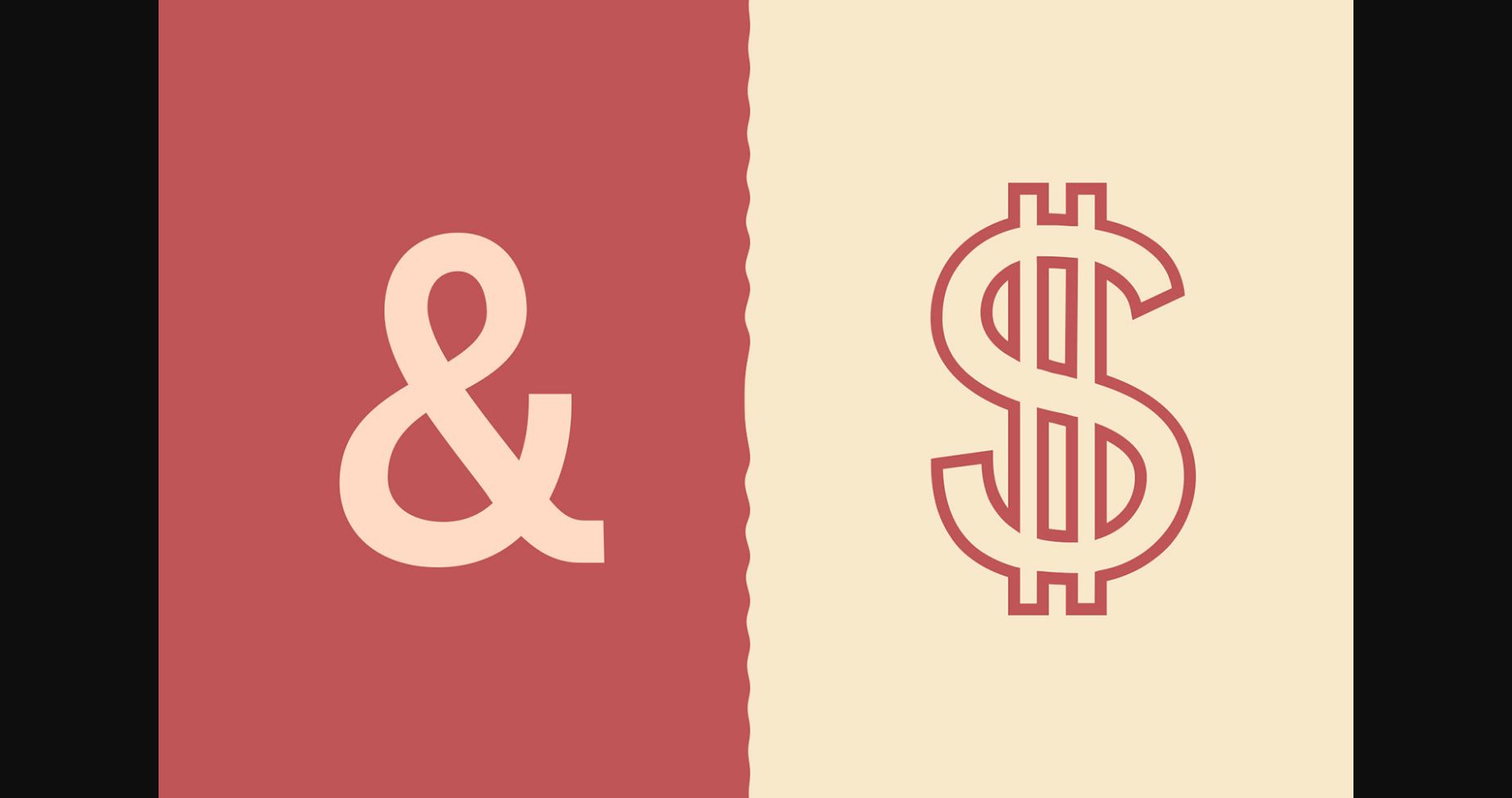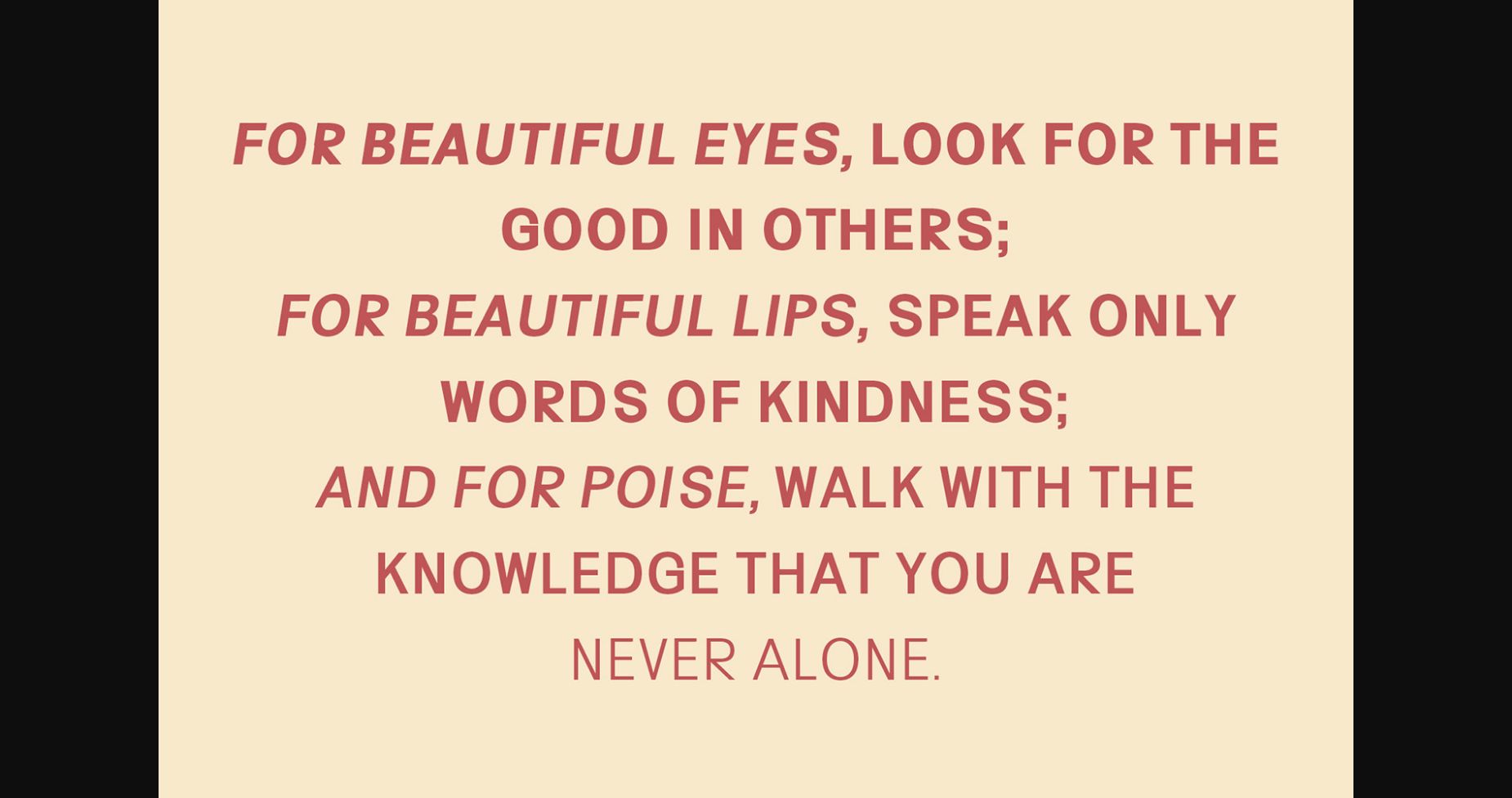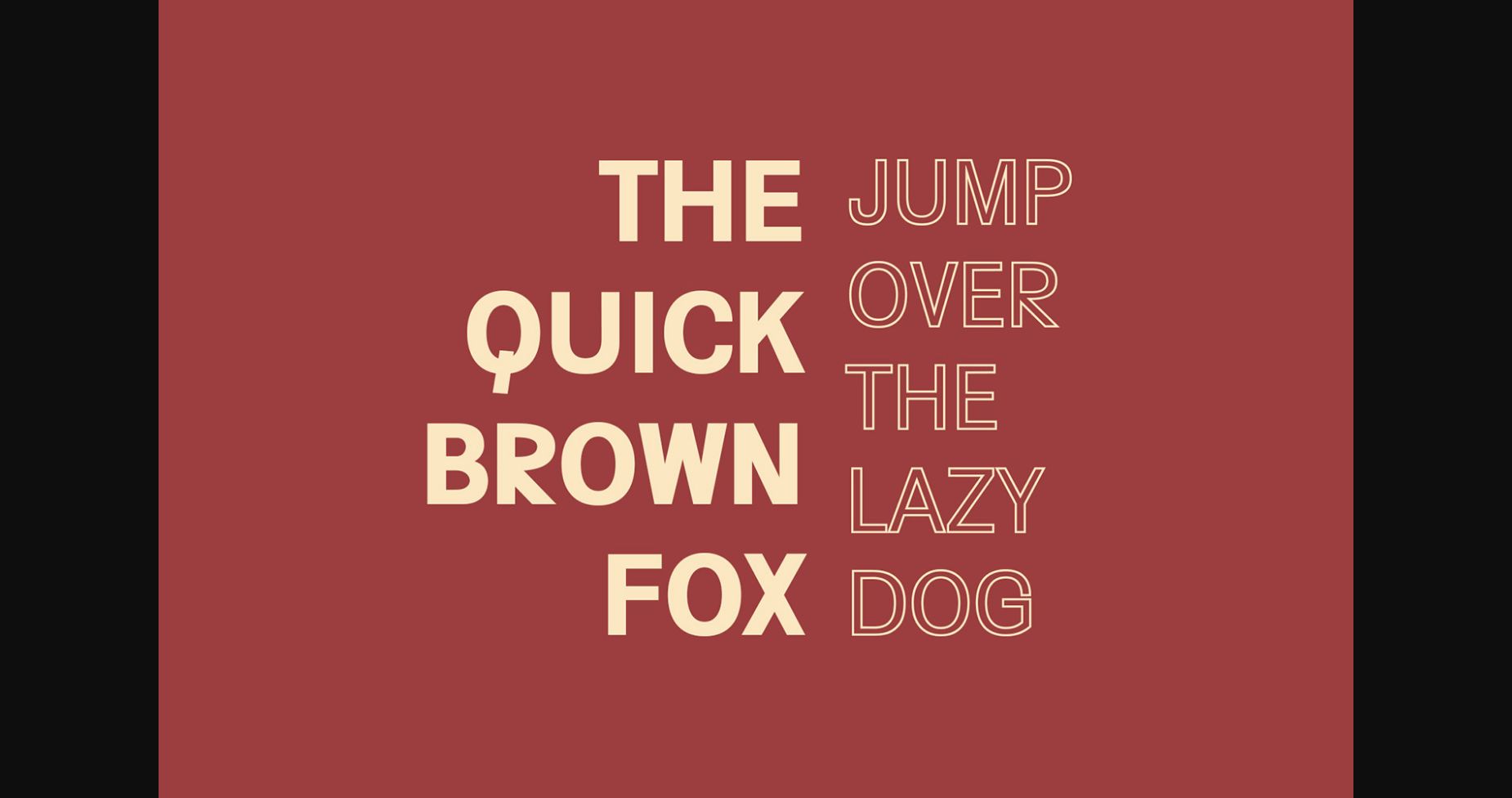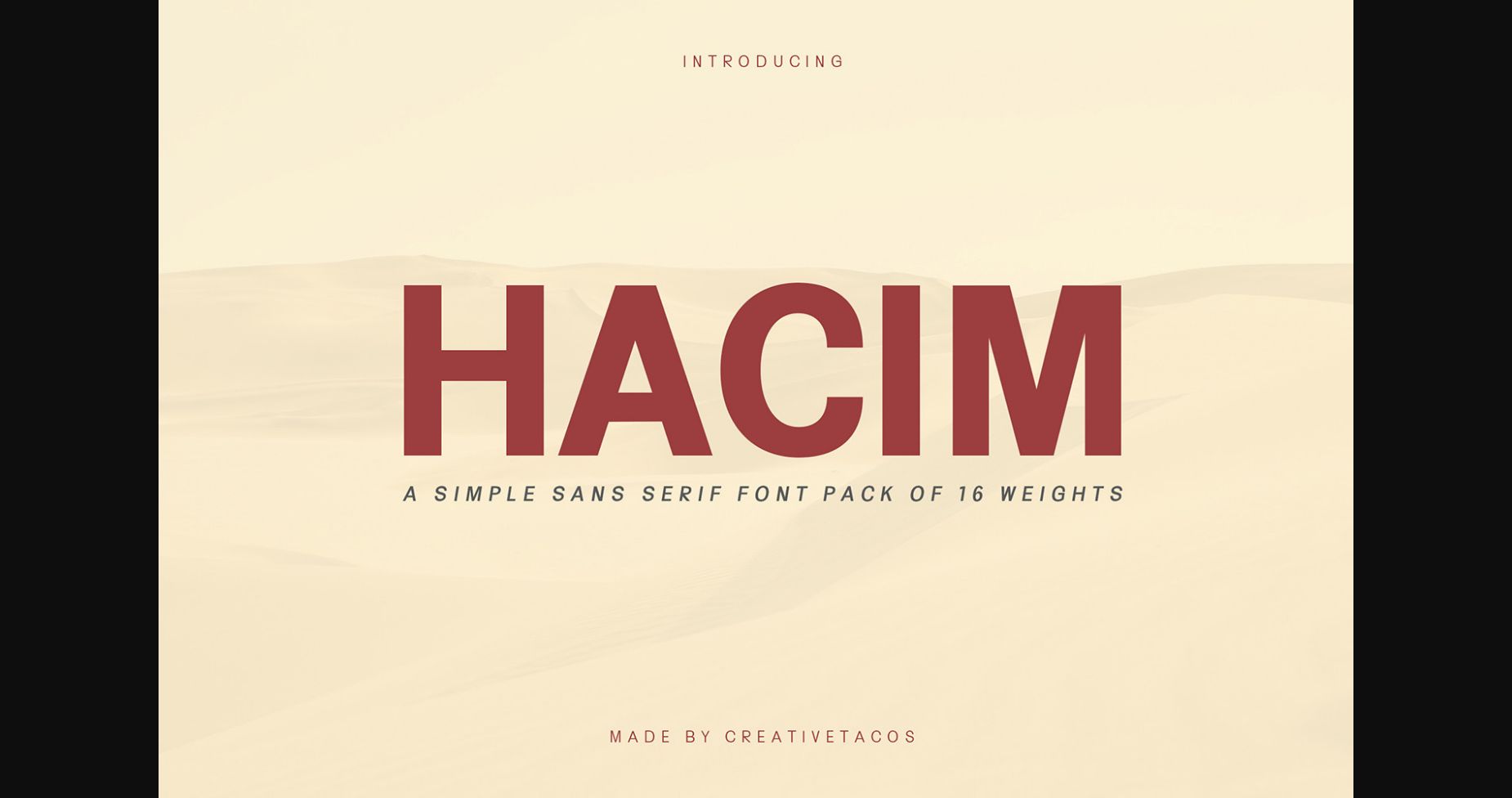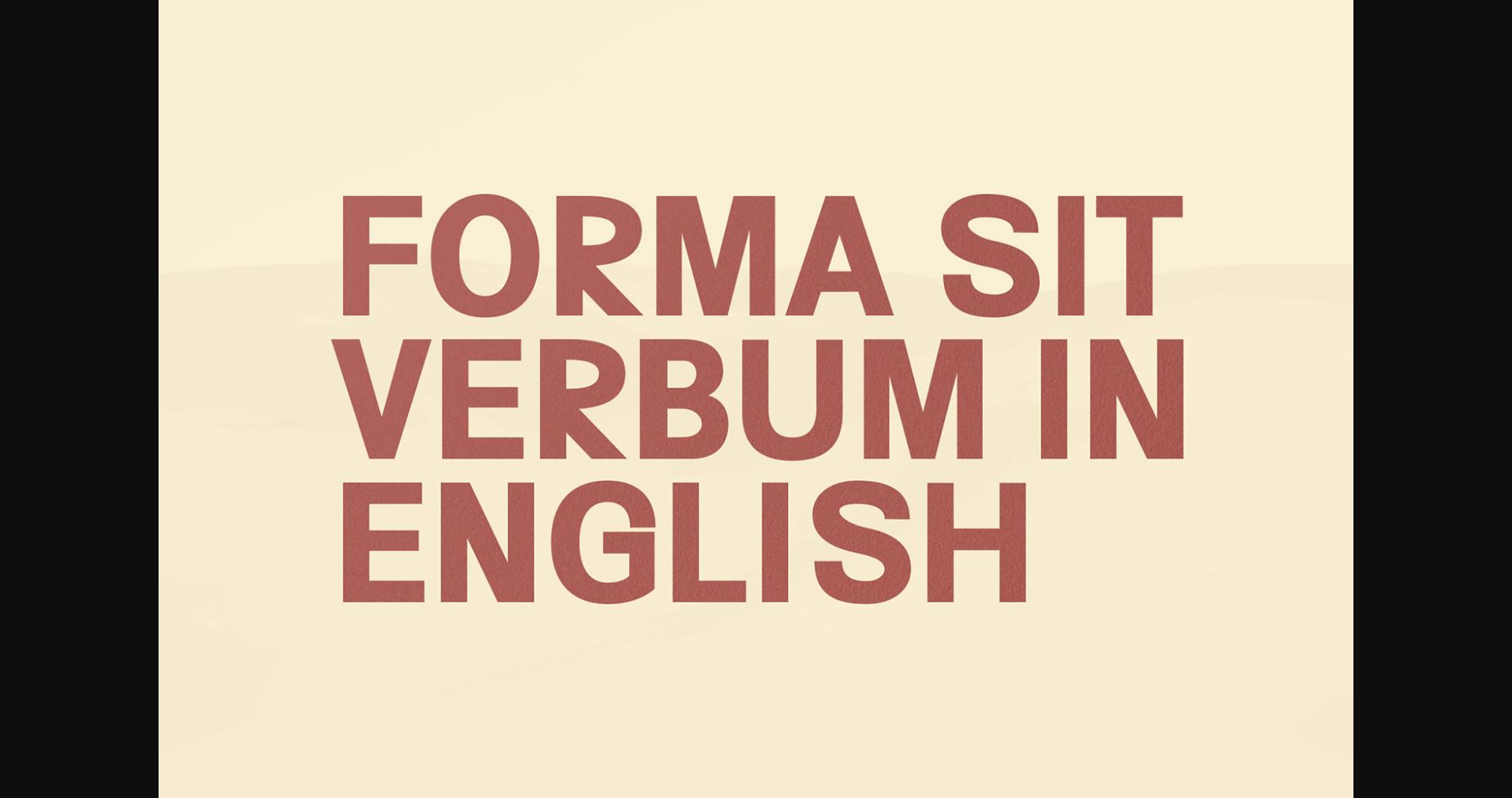
About Hacim Family Font
Hacim is a modern sans serif font family that can perfectly complement any creative idea! Use it for logos, packaging, headlines, branding, posters. magazines, or any other project that needs a solemn and clean look!